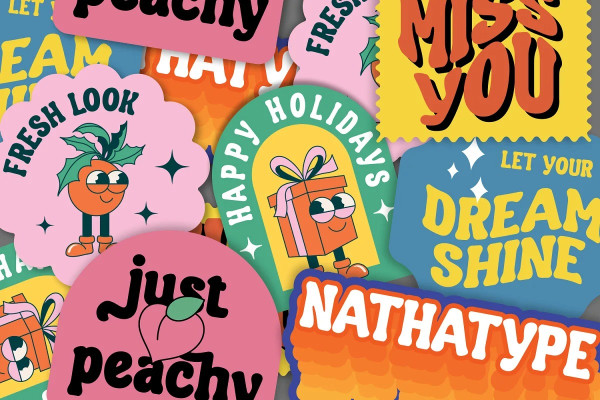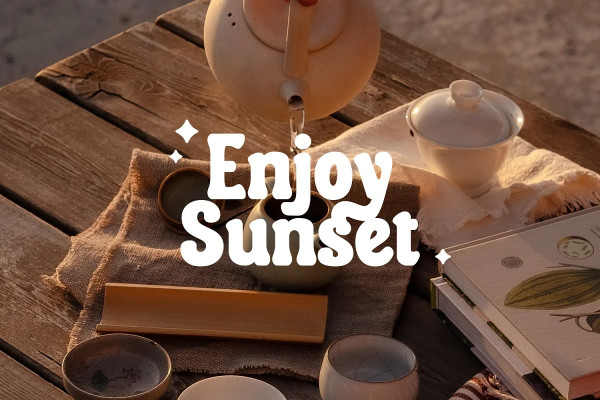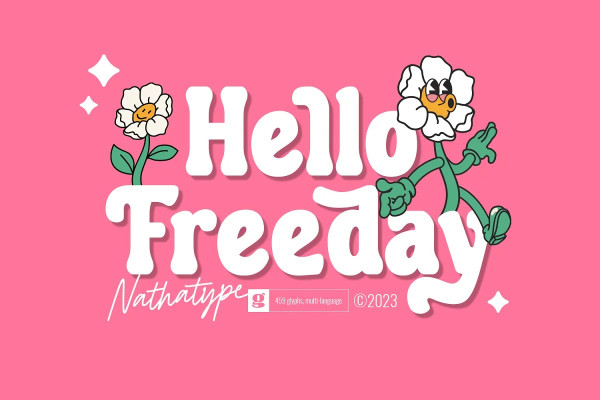
Hello Freeday Font
Hello Freeday Font is a striking display font that combines a bold and clean font weight with playful swinging endings. With its uniform letter proportions and unique character details, this typeface effortlessly balances sophistication and a touch of whimsy. The bold and clean font weight of this font commands attention and adds a sense of strength and impact to your designs. Each letter is meticulously designed with precise geometric forms, resulting in a polished and professional appearance.
The consistent proportions of the letters contribute to the font’s overall coherence, ensuring a harmonious and balanced visual experience. What sets this display apart is the charming swinging endings found in select letters. These decorative details add a hint of playfulness and movement to the font, injecting a touch of personality and delight into your designs. The swinging endings give the letters a sense of rhythm and flow, making Hello Freeday an excellent choice for projects that require a dynamic and captivating visual presence. The font’s bold and clean aesthetic ensures legibility and readability, even at smaller sizes. Enjoy the available features here.